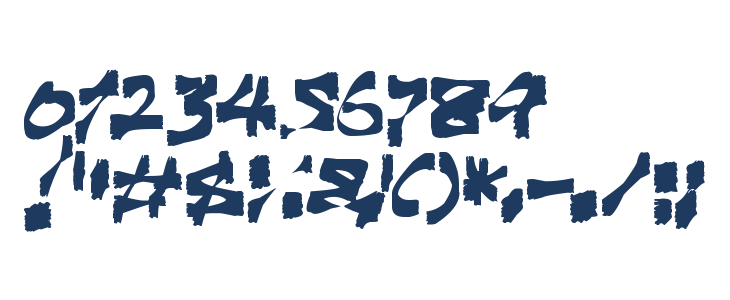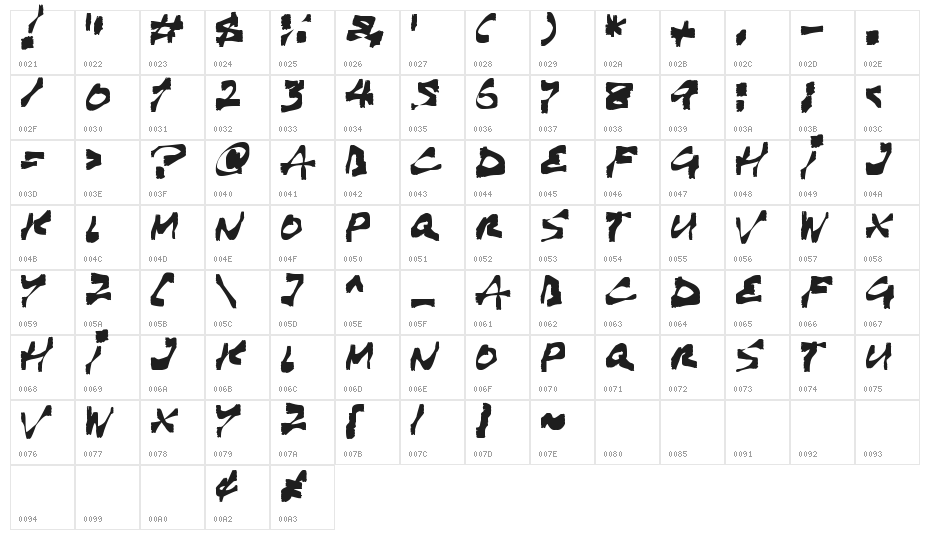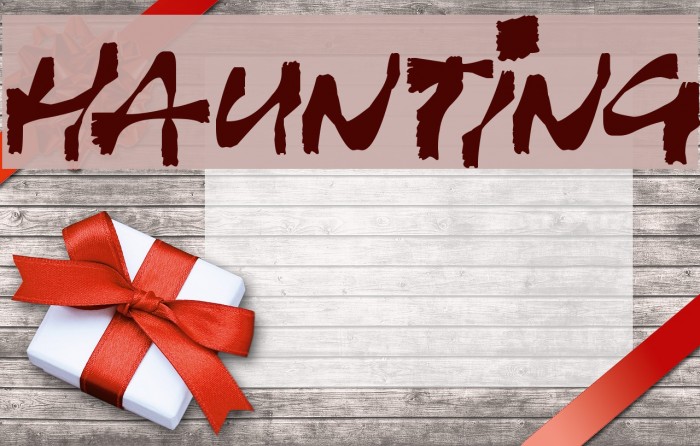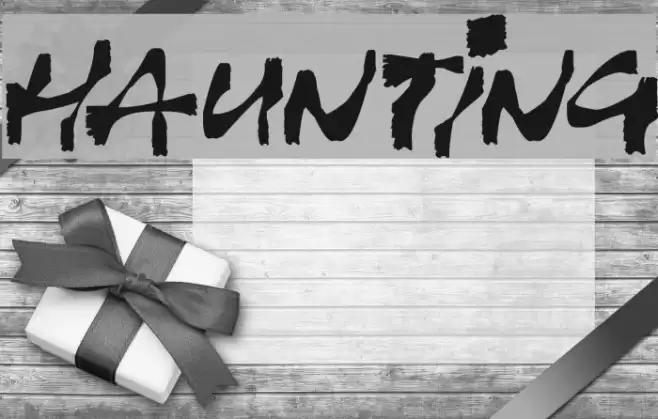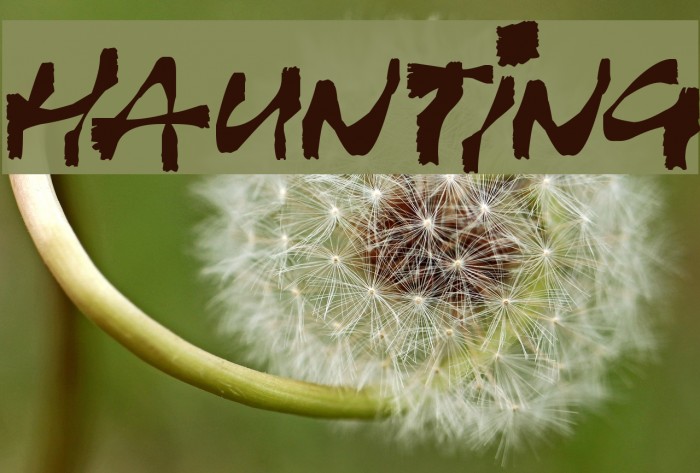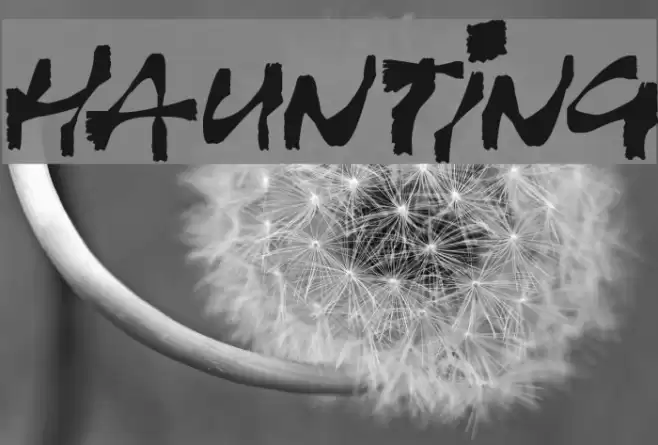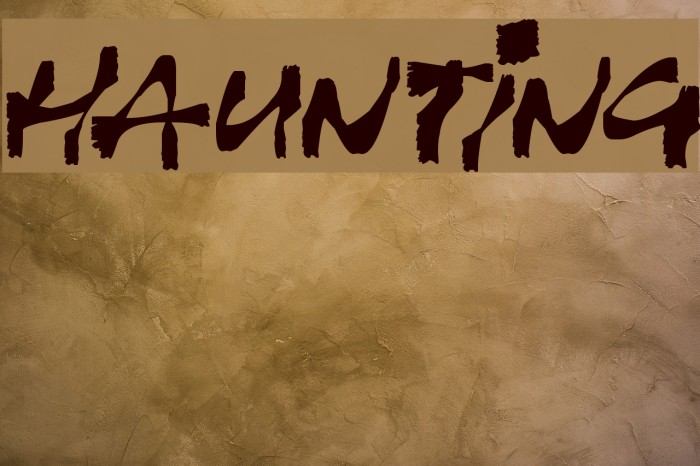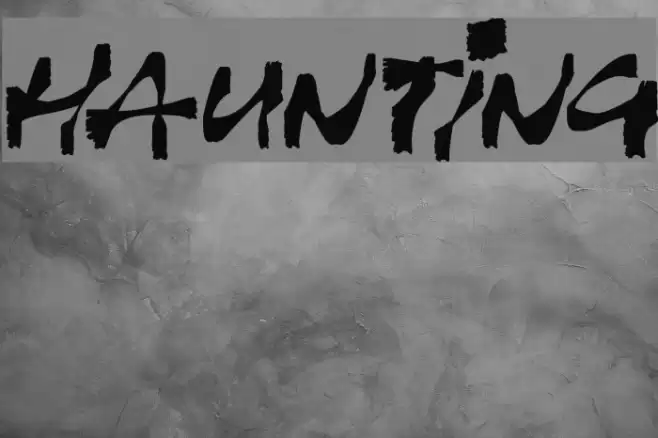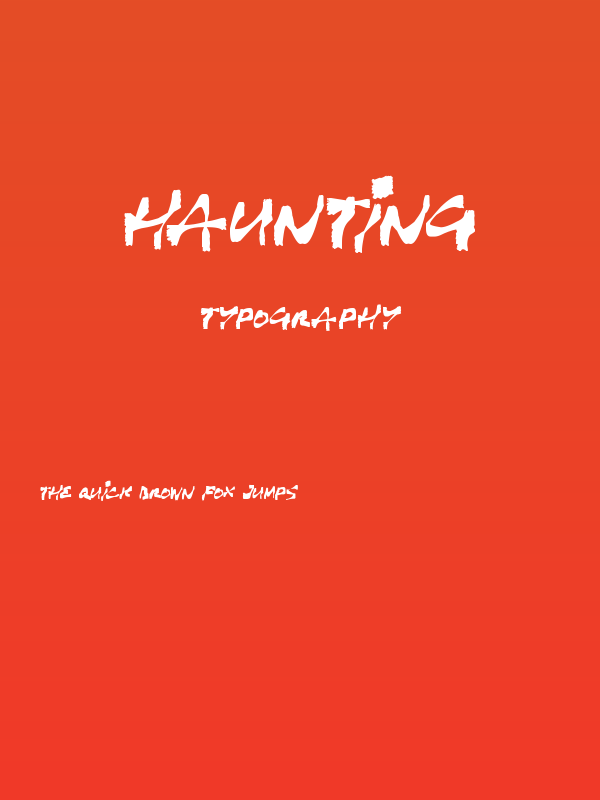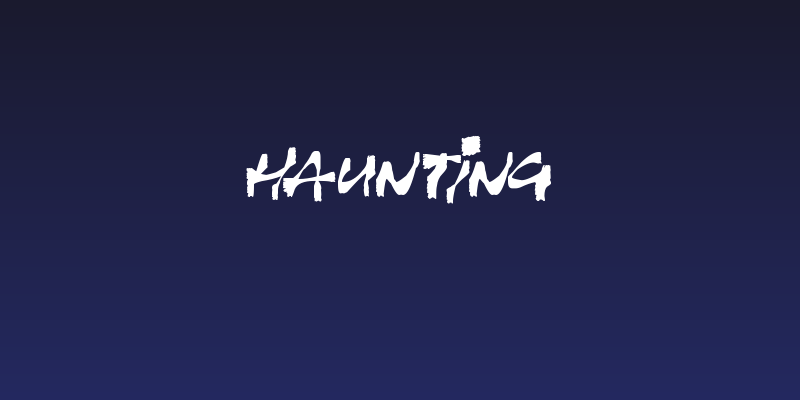
Haunting Font
Haunting Description
This font exhibits a bold and expressive style, characterized by its brush-like strokes and irregular edges, giving it a raw and dynamic appearance. The letters are crafted with a sense of movement and energy, resembling hand-painted or graffiti art. The uppercase and lowercase letters maintain a consistent aesthetic, with varying stroke thickness that adds to its artistic flair. Numbers and special characters follow the same design principles, ensuring a cohesive look across all elements. The font's unique style makes it stand out, ideal for projects that require a strong visual impact.